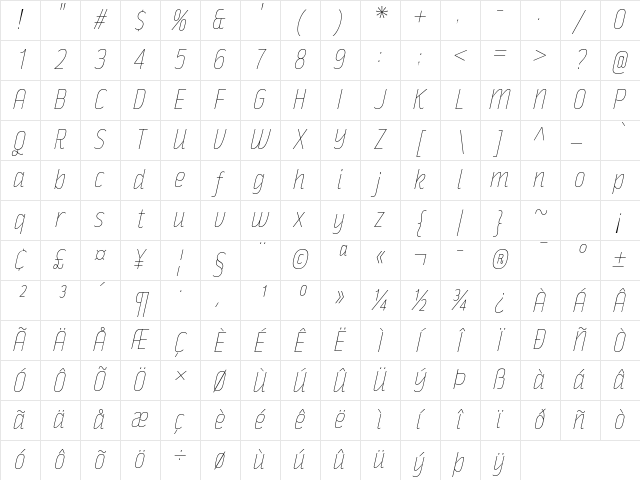
Rakesly UltraLight Italic Free Font
Rakesly UltraLight Italic
Style: UltraLight Italic
Design Context for Rakesly
Rakesly is a composed and adaptable typeface that performs quietly and consistently across a wide range of design contexts. The slanted form adds forward momentum and visual energy. Its slender proportions lend an understated elegance to any composition.